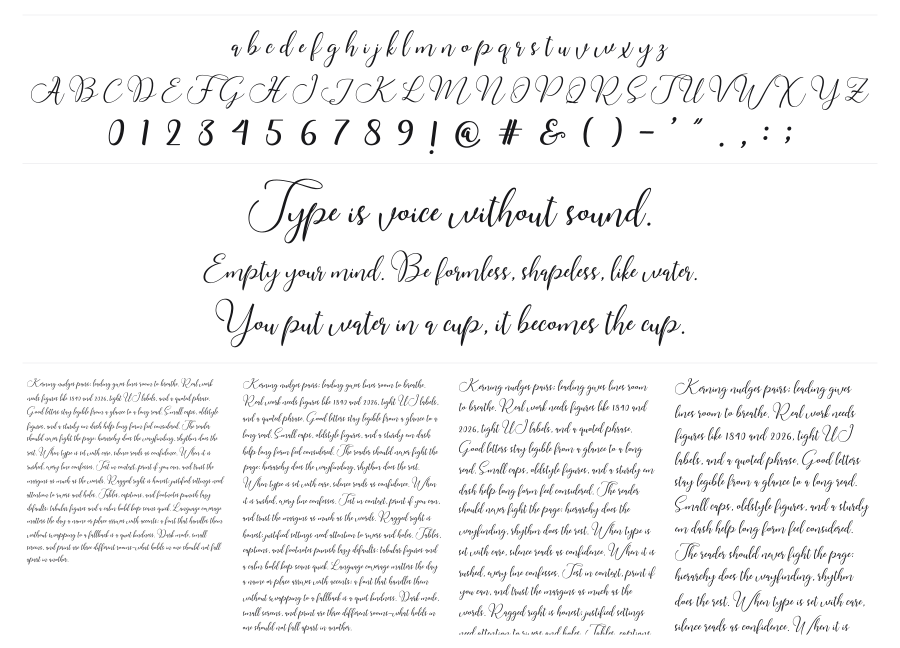
Buttercup Script
Buttercup Script is a contemporary casual calligraphy script with bouncy rhythm and generous looped ascenders. The flowing connected strokes and moderate thick-thin contrast give it a handcrafted warmth that works across wedding stationery, branding, and packaging. It carries enough polish to feel designed without losing its hand-lettered personality.